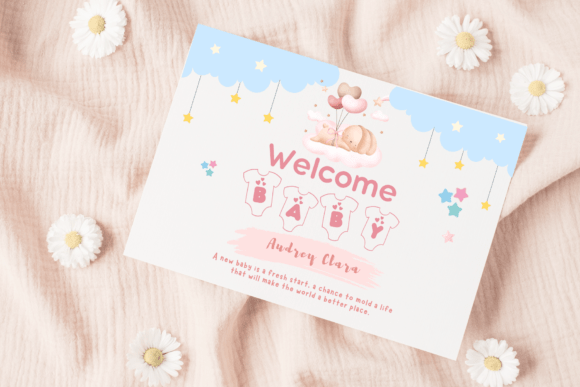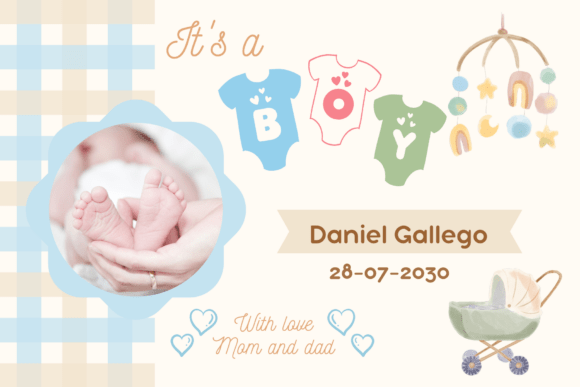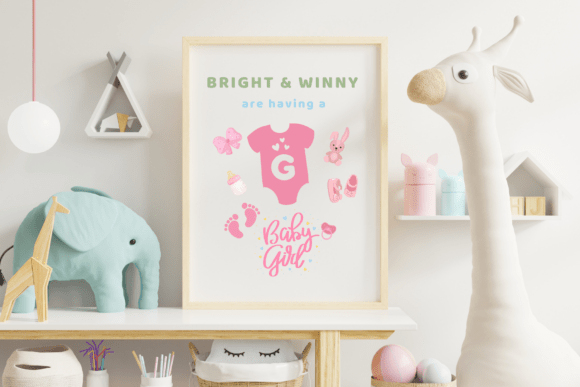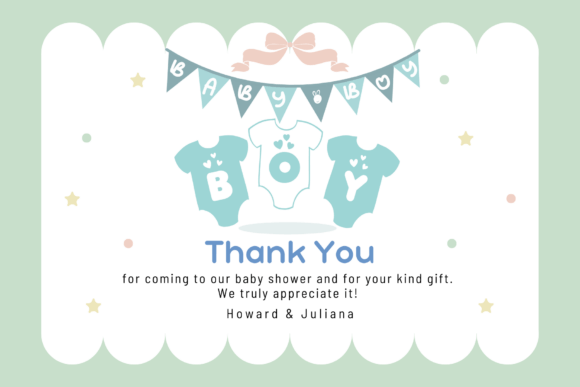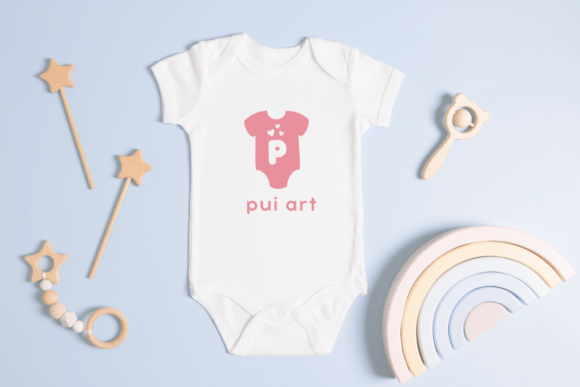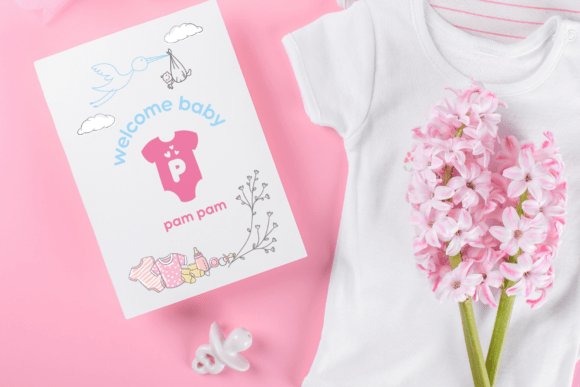
Baby Cuddle Font: The Ultimate Typeface for Cute and Playful Designs
Are you looking for a font that exudes warmth, joy, and cuteness? Look no further than the Baby Cuddle Font, a delightful decorative typeface that is sure to capture the hearts of designers, crafters, and anyone who loves adorable baby designs. Inspired by baby outfits and heartwarming designs, this font is perfect for a wide range of projects, from children’s materials to nursery decor.
The Inspiration Behind Baby Cuddle Font
Baby Cuddle Font is a creative interpretation of traditional typography, where each letter is carefully crafted to resemble a baby onesie. The font’s design is infused with sweet heart accents, making it an irresistibly charming addition to any project. The inspiration behind this font is the joy and love that comes with welcoming a new baby into the world. The designers aimed to create a typeface that would evoke feelings of warmth, comfort, and playfulness.
Baby Cuddle Font is an incredibly versatile typeface that can be used for a multitude of projects. Some of the most popular uses for this font include:
- Children’s projects: Create engaging and interactive materials for kids, such as storybooks, activity sheets, and educational resources.
- Baby shower invitations: Set the tone for a joyful celebration with adorable invitations that feature the Baby Cuddle Font.
- Newborn announcements: Share the exciting news of a new arrival with beautifully designed announcements that showcase this charming font.
- Nursery wall art: Add a personal touch to a nursery with custom wall art featuring the Baby Cuddle Font.
- Kids’ apparel: Design cute and playful clothing for kids, such as t-shirts, onesies, and hoodies.
- Logos: Create a memorable brand identity with a custom logo that incorporates the Baby Cuddle Font.
- Crafting projects: Use this font to add a touch of personality to handmade crafts, such as scrapbooking, card-making, and DIY home decor.
Key Features of Baby Cuddle Font
This delightful font boasts several key features that make it a standout choice for designers and crafters:
- Unique lettering: Each letter is carefully designed to resemble a baby onesie, complete with sweet heart accents.
- Playful feel: The font’s playful and whimsical feel makes it perfect for projects that require a lighthearted touch.
- Scalable: The Baby Cuddle Font is highly scalable, making it suitable for use in a variety of contexts, from small icons to large banners.
Why Choose Baby Cuddle Font?
With so many fonts available, why choose Baby Cuddle Font? Here are just a few reasons why this typeface stands out:
- Cuteness overload: This font is guaranteed to bring a smile to anyone’s face, making it perfect for projects that require a dose of cuteness.
- Emotional connection: The Baby Cuddle Font evokes feelings of warmth, love, and joy, making it an excellent choice for projects that aim to create an emotional connection.
In conclusion, the Baby Cuddle Font is a delightful decorative typeface that is sure to capture the hearts of designers, crafters, and anyone who loves adorable baby designs. With its unique lettering, playful feel, and scalability, this font is perfect for a wide range of projects, from children’s materials to nursery decor. Whether you’re looking to create a cute and playful design or simply want to add a touch of warmth and love to your project, the Baby Cuddle Font is an excellent choice.